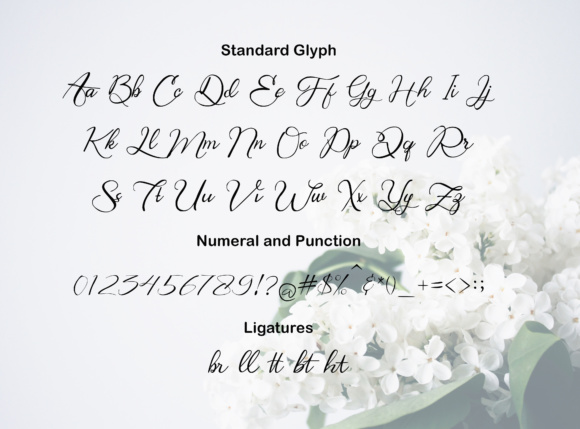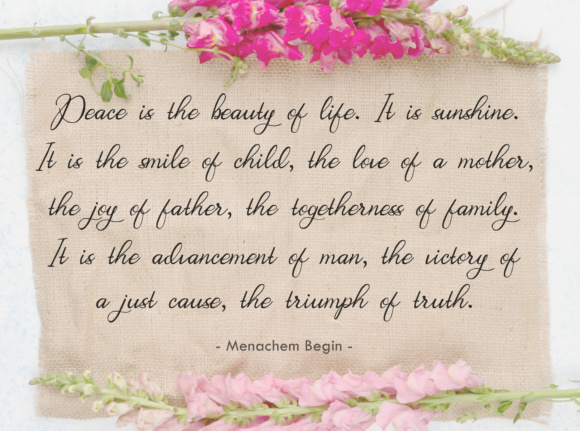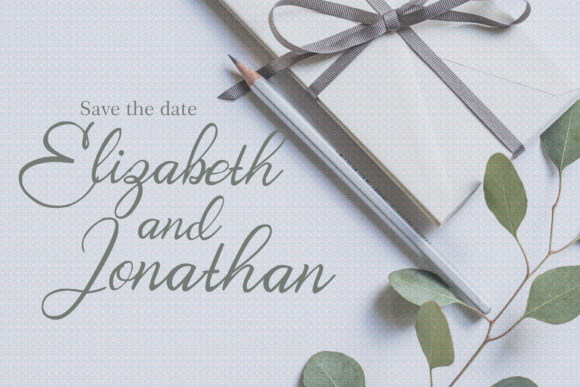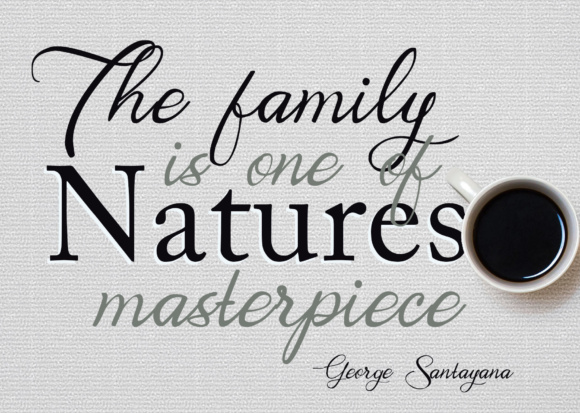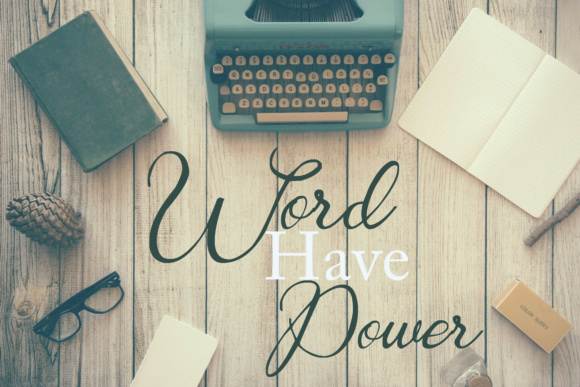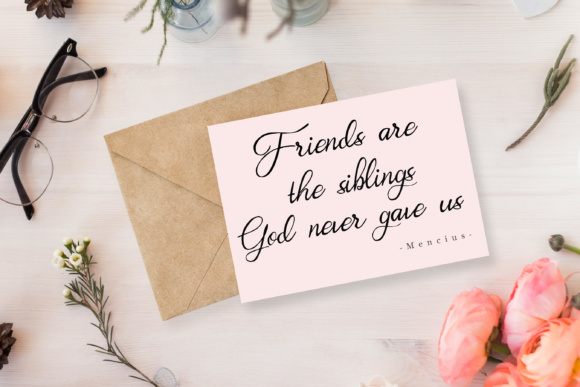
Bring Heart Font
About Bring Heart Font
Bring Heart is a beautiful and modern calligraphy font, crafted to give your work an elegant look. This modern calligraphy font will amplify your work with the ability to accommodate different styles and designs.